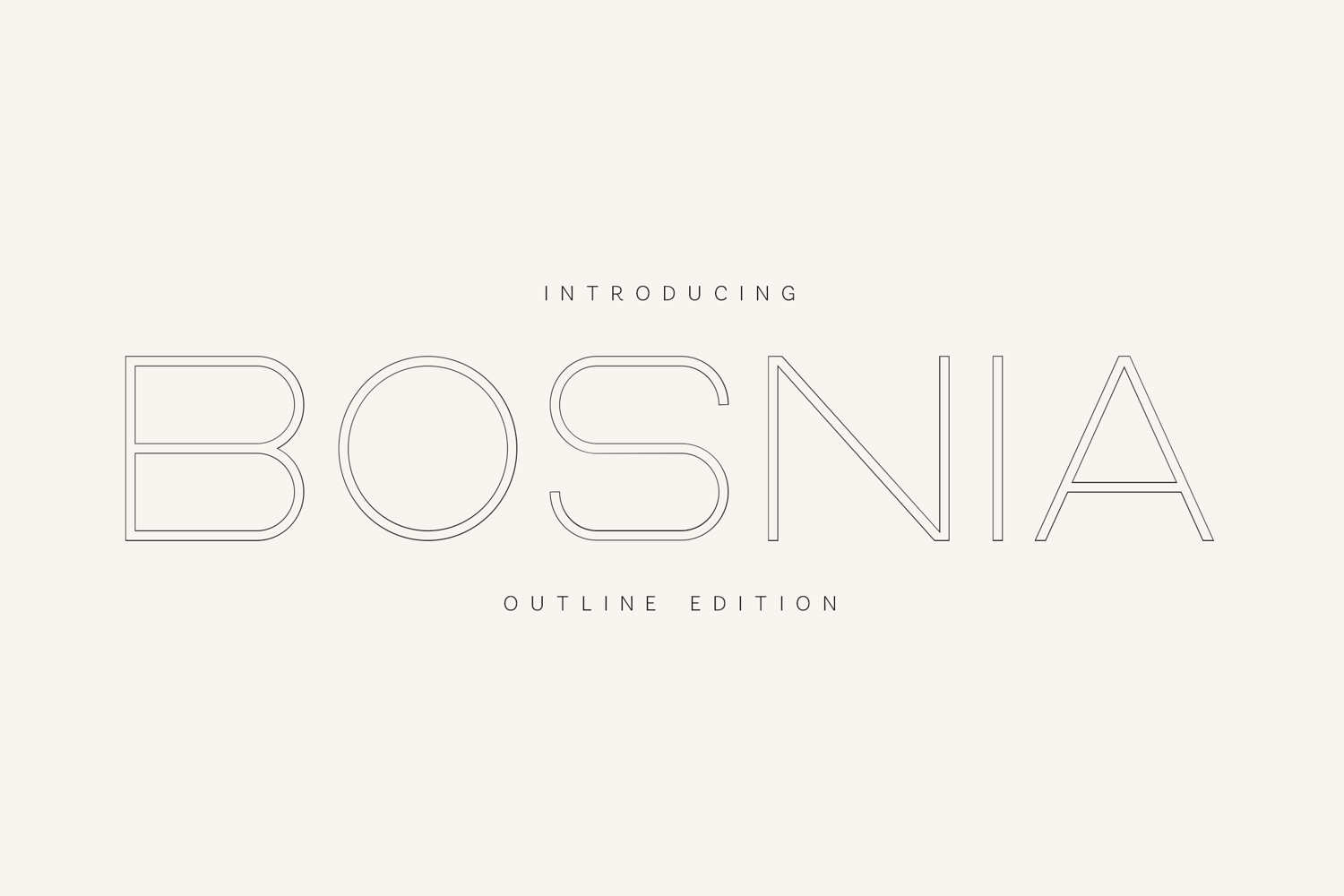
Bosnia Outline Modern Geometric Display Typeface
Bosnia Outline is a modern geometric outline font featuring clean double-line letterforms, minimalist construction, and a sleek contemporary aesthetic. Designed for logos, branding, packaging, posters, editorial layouts, social media graphics, technology projects, architecture presentations, and luxury visual identities, Bosnia Outline delivers a refined and elegant look with exceptional readability.
Its lightweight outlined structure makes it perfect for premium branding, futuristic headlines, fashion campaigns, cosmetic packaging, modern signage, creative portfolios, and sophisticated typography projects. With multilingual language support, numerals, punctuation, and carefully crafted characters, Bosnia Outline is a versatile display font that brings clarity, balance, and style to any design.
- Logo Design
- Branding & Visual Identity
- Fashion & Luxury Brands
- Packaging Design
- Posters & Editorial Design
- Social Media Graphics
- Architecture & Interior Projects
- Technology & Startup Branding
- Modern Advertising
- Creative Headlines